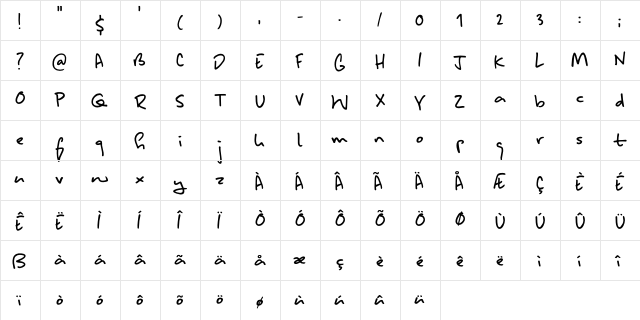
Another Monday DEMO Regular
| Foundry | David Kerkhoff |
| Designer | David Kerkhoff |
Design Context for Another Monday DEMO Typeface
Another Monday DEMO is a composed and adaptable typeface that performs quietly and consistently across a wide range of design contexts.